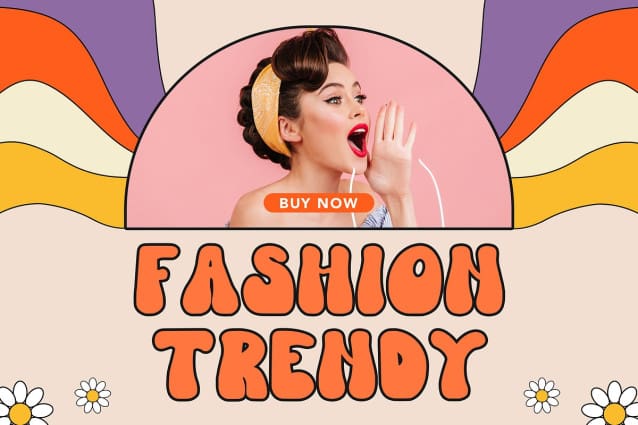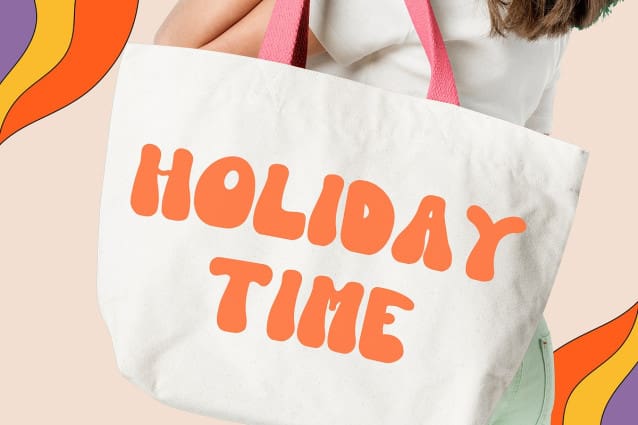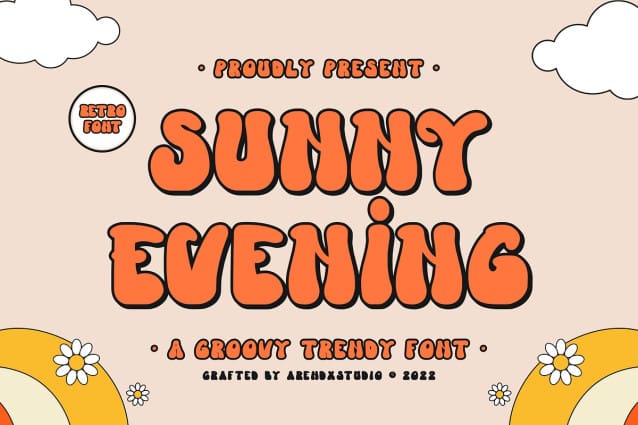
Sunny Evening Font
Sunny Evening Font – Groovy Trendy Font is a font with distinctive handwritten characters perfect for branding projects, logos, wedding designs, media posts, advertisements, product packaging, product designs, labels, photography, watermarks, invitations, stationery, and any project who need handwritten dishes.